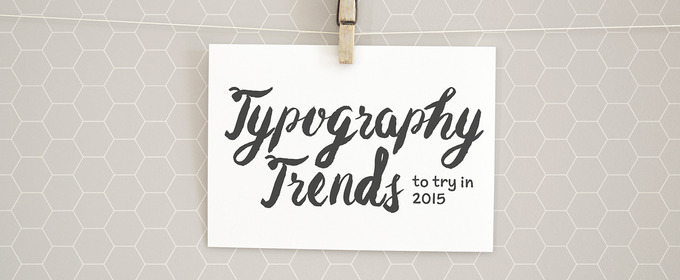
Inspirational Quotes Lettering Custom Designed Illustrations
Popular fonts for quotes. Like helvetica this font is used by a lot of web designers and has now become even more famous due to the new mobile optimisations. It is very bold and yet very legible making it perfect for logos posters or your next throwback instagram post. Cambria a serif font is part of a suite of typefaces called the cleartype font collection which has been widely distributed with microsoft office programsthese typefaces calibri cambria candara consolas constantia and corbel were designed specifically to perform well on computer monitors.
Use this best free fonts list as inspiration for your next design project. Futura is a font that comes up often in large displays logos corporate typefaces and in books where small text is needed. It is based on.
Download it at befonts. Since then the font is used on 4 billion websites in the us and france alone. 7 cool images of most popular fonts for wood signs.
Garamond is a great font for magazines textbooks websites and long bodies of text and was recently named the second best font after helvetica by a german publication. Users prefer to combine it with bolder fonts like oswald or roboto. Every font is free to download.
Shintia is a stylish script font with a classic and vintage touch to it. Another one of the best wordpress fonts source sans pro was developed by adobe to fit all sorts of user interfaces. Awesome most popular fonts for wood signs images.
Fonts affect to a large extent how your typographic material looks and feels to the audience so it is important to choose the font carefully for your printing publishing web designing and other tasks. And remember when we think about social media design we should think mobile first because its the place where our users look at our posts the most. This last font on the list is also by seniors studio.
Download Popular Fonts For Quotes This beautiful handwritten script font features both uppercase and lowercase letters with numbers and punctuations. It’s the perfect font for designing everything from website headers to greeting cards, T-Shirt designs, and more.